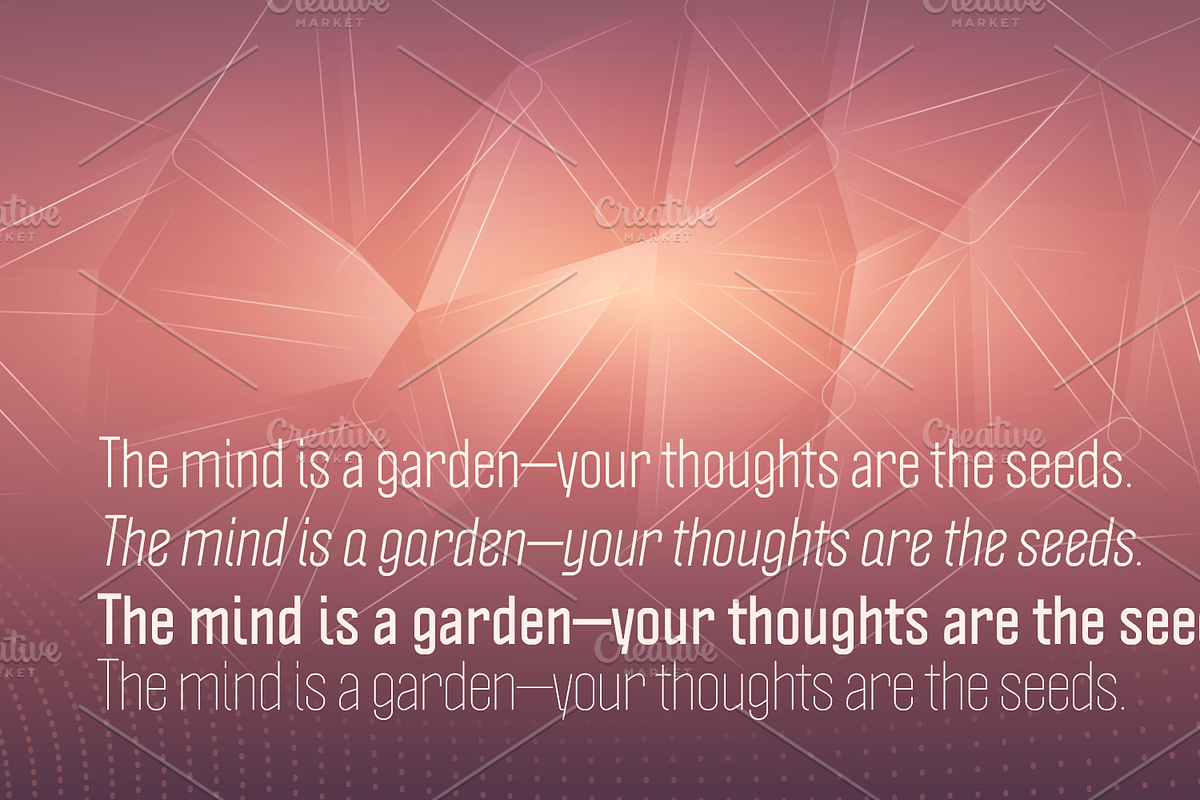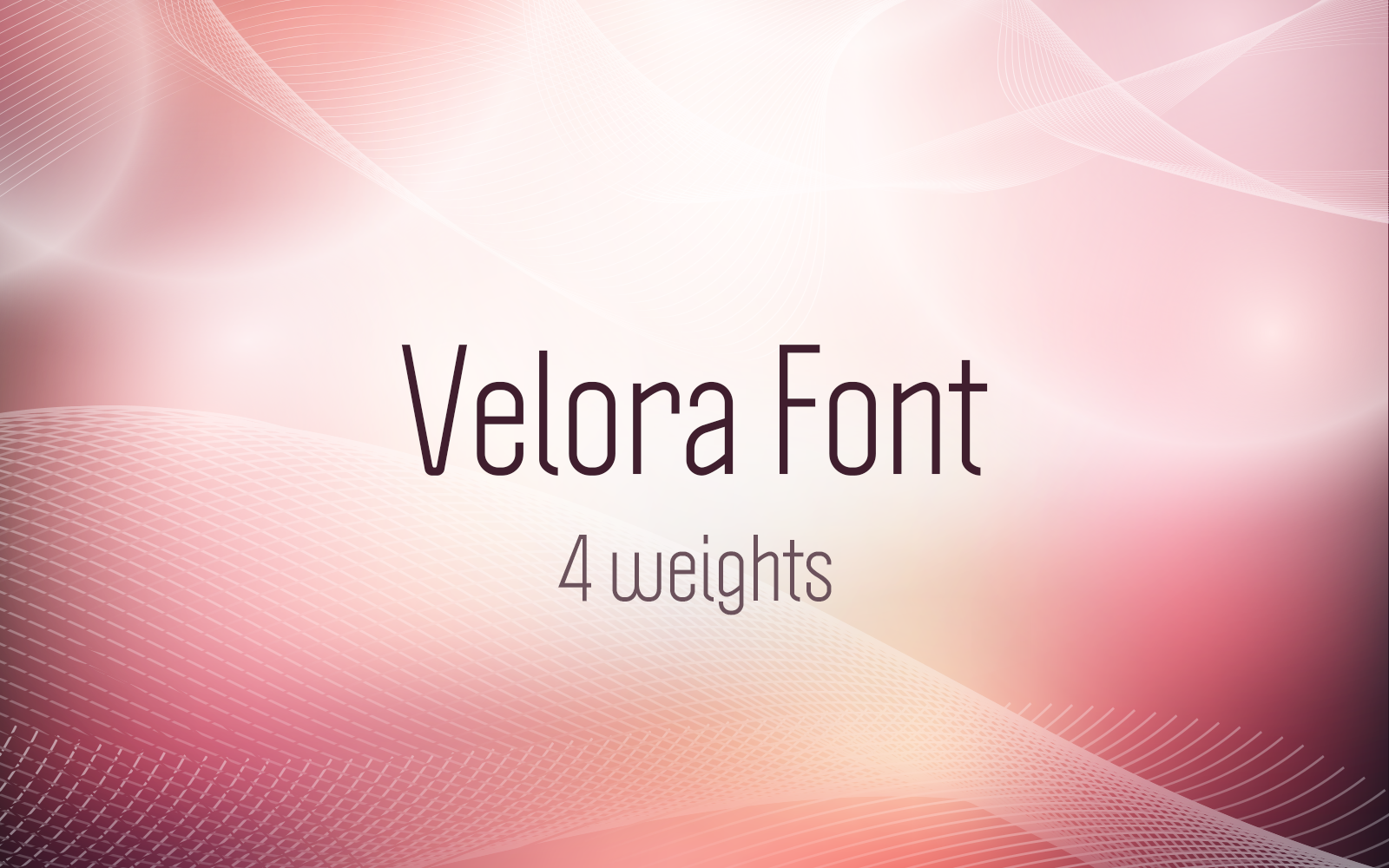
Velora is a forward-thinking font built for the next generation of design. With sleek curves, dynamic motion accents, and four versatile weights, it adapts seamlessly across digital and print. Whether you're designing for tech, fashion, or innovation — Velora adds that sharp, modern edge that makes your work stand out. 4 weights